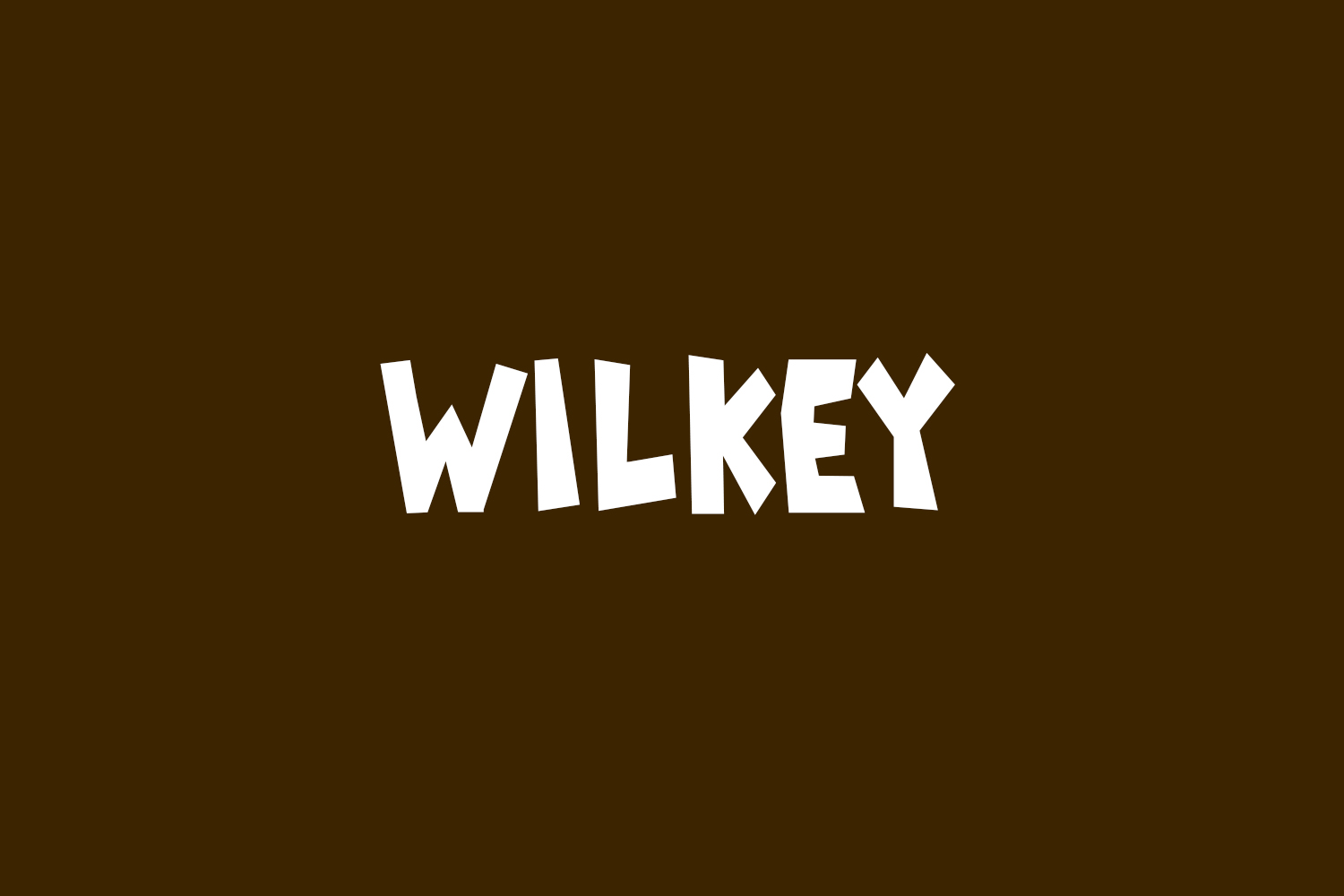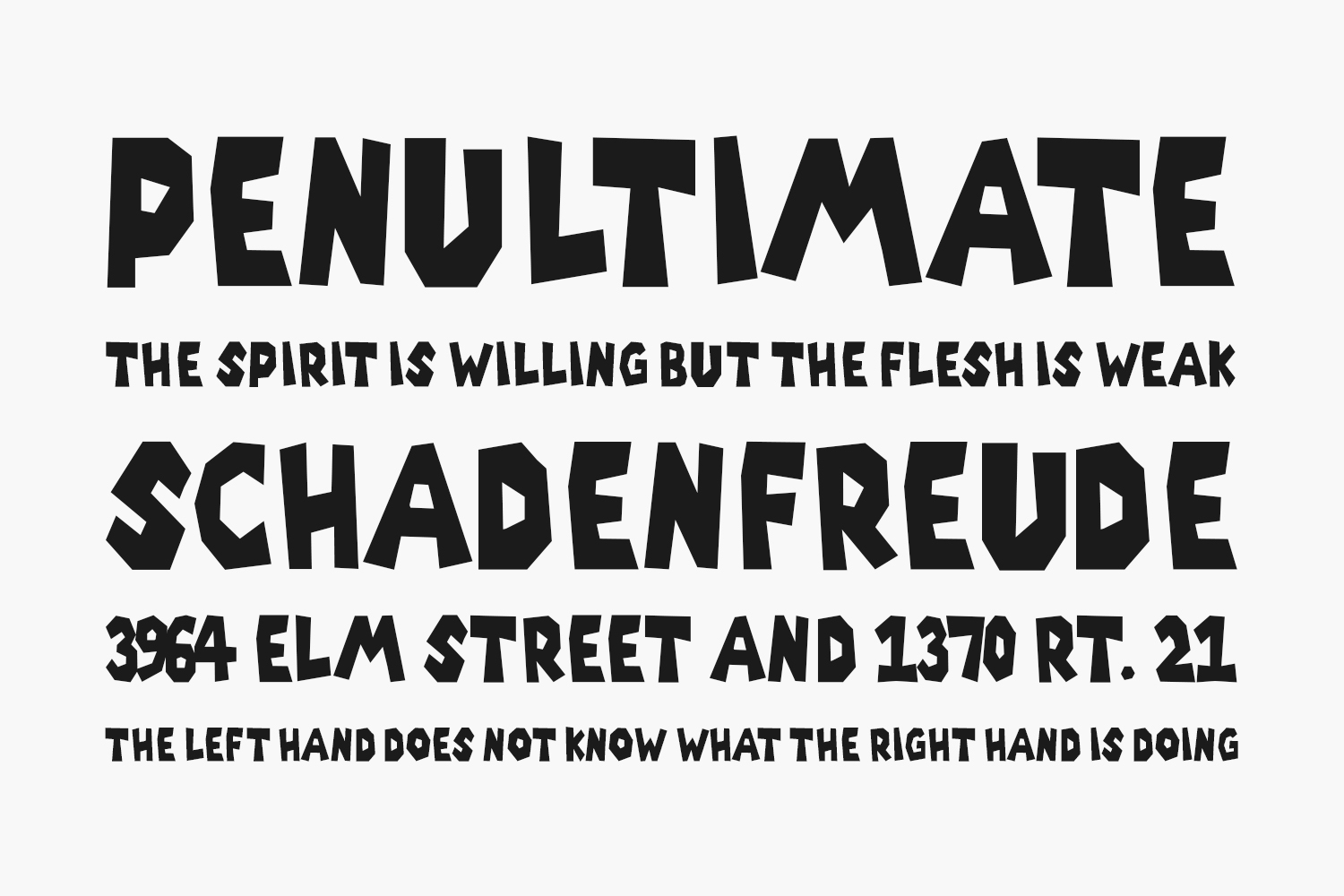
Introducing Wilkey Free Font, our latest font that carries the concept of chilhood and cute. Here I as the maker will tell about the background of this font. Starting from an idea that sparked after seeing one of Disney studio’s animated films, made me want to make a typography style with the same impression but with different shapes. Then I continued the idea to the sketch process until finally this Wilkey font was created.
Wilney typeface is suitable for posters, magazines, children’s books, movie titles and more.